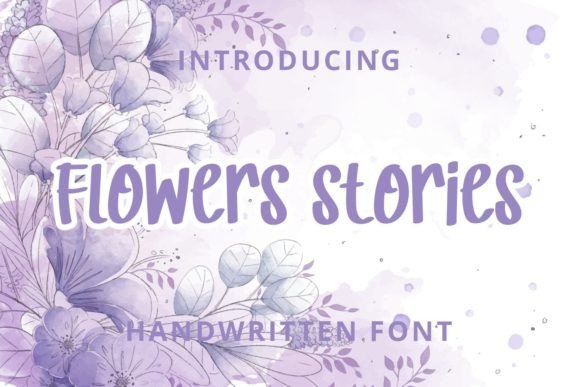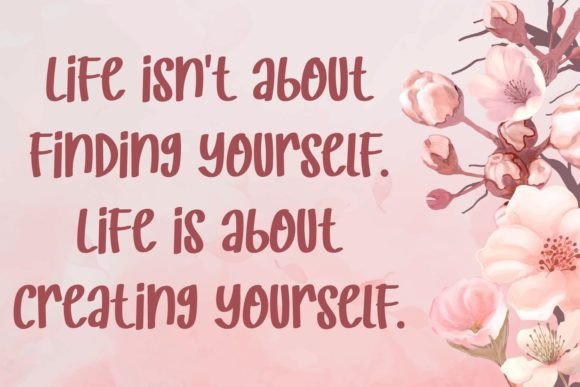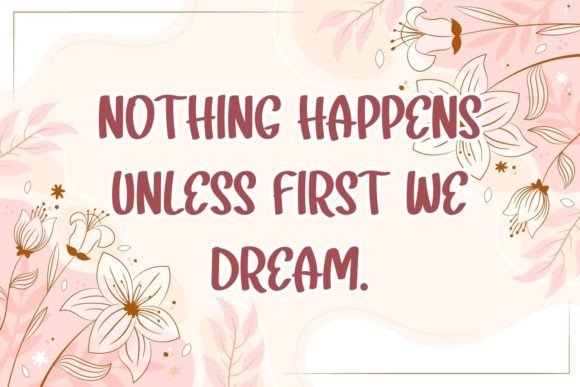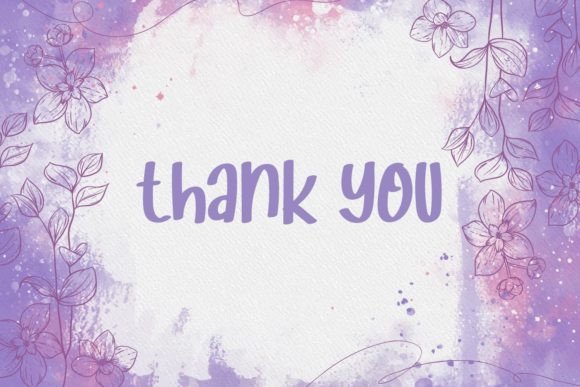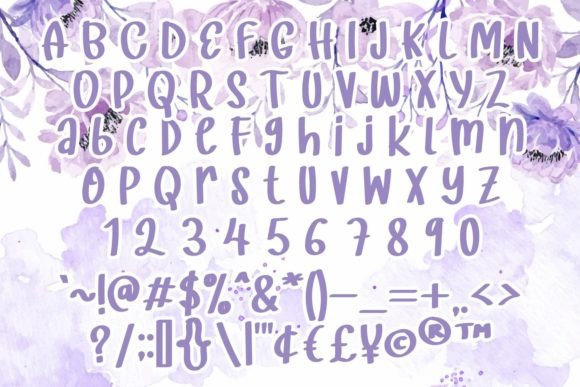
Flower Stories Font
About Flower Stories Font
**Flower Stories** is a delightful and charming handwritten font that adds a playful touch to any design. Its fun and lovely appearance make it particularly well-suited for various creative projects, especially those that require a touch of whimsy and elegance.
One of the standout features of Flower Stories is its versatility. The font looks stunning on a wide range of materials, making it a popular choice for wedding invitations, thank you cards, quotes, greeting cards, logos, business cards, and more. Its playful and handwritten style adds a sense of warmth and authenticity, making your designs feel personal and inviting.
In wedding invitations and thank you cards, Flower Stories creates a romantic and whimsical atmosphere. Its lovely handwritten script enhances the overall aesthetic, making these special occasions even more memorable. The font’s playful touch adds a sense of joy and celebration, setting the tone for a beautiful event.
For quotes and greeting cards, Flower Stories infuses a sense of positivity and cheerfulness. Its fun and lively appearance make it ideal for conveying heartfelt messages and inspirational quotes. Whether used in print or digital media, the font adds a playful and uplifting vibe, making your quotes and greetings more impactful and engaging.
In logos and business cards, Flower Stories can add a touch of creativity and charm. Its handwritten style adds a personal and approachable feel to branding materials, making the brand more relatable to the audience. The font’s playful touch can create a memorable and distinctive visual identity, leaving a lasting impression on customers and clients.
In summary, Flower Stories is a fun and lovely handwritten font that brings a playful touch to a wide range of designs. Its versatility and charm make it a valuable asset for designers seeking to add a whimsical and delightful flair to their projects. Embrace the playful nature of Flower Stories and let it enhance your creative endeavors with its joyful and charming presence.